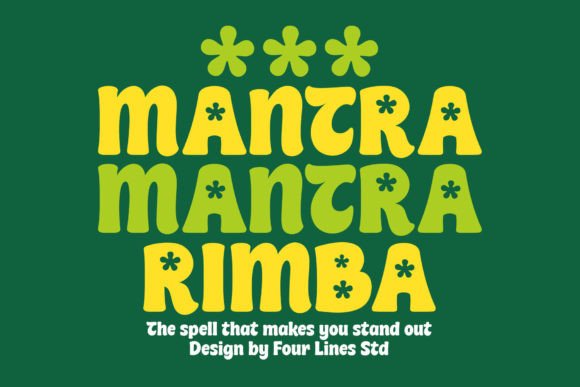
Dive into the enchanting realm of typography with Mantra Rimba Font, where nature's allure intertwines with the art of legible expression. This captivating display font draws inspiration from the untamed wonders of the wild, capturing the essence of untamed spirits and boundless creativity.
Unleash your inner artist with Mantra Rimba Font, meticulously crafted to infuse your designs with a touch of whimsy and an unwavering commitment to clarity. Its enchanting curves mimic the graceful sway of windswept leaves, inviting your imagination to soar among the treetops. The result? A font that seamlessly blends the ethereal beauty of nature with the practical demands of readability.
Let your designs blossom with the versatility of Mantra Rimba Font. Its captivating nature makes it an ideal choice for invitations that exude elegance, logos that command attention, and social media graphics that ignite engagement. Whether you're crafting eye-catching posters or playful stickers, this font effortlessly transforms each canvas into a masterpiece.
Indulge in the artistry of Mantra Rimba Font, where the magic of nature intertwines with the power of expression. Let its enchanting spirit guide your creativity, inspiring you to craft designs that resonate with both the heart and the mind. Embrace the boundless possibilities that await, and embark on a typographic adventure like no other.